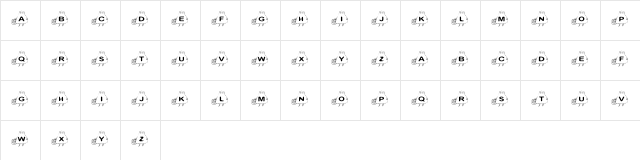
KR Trick Or Treat Regular
Design Context for KR Trick Or Treat Typeface
KR Trick Or Treat is a composed and adaptable typeface that performs quietly and consistently across a wide range of design contexts.